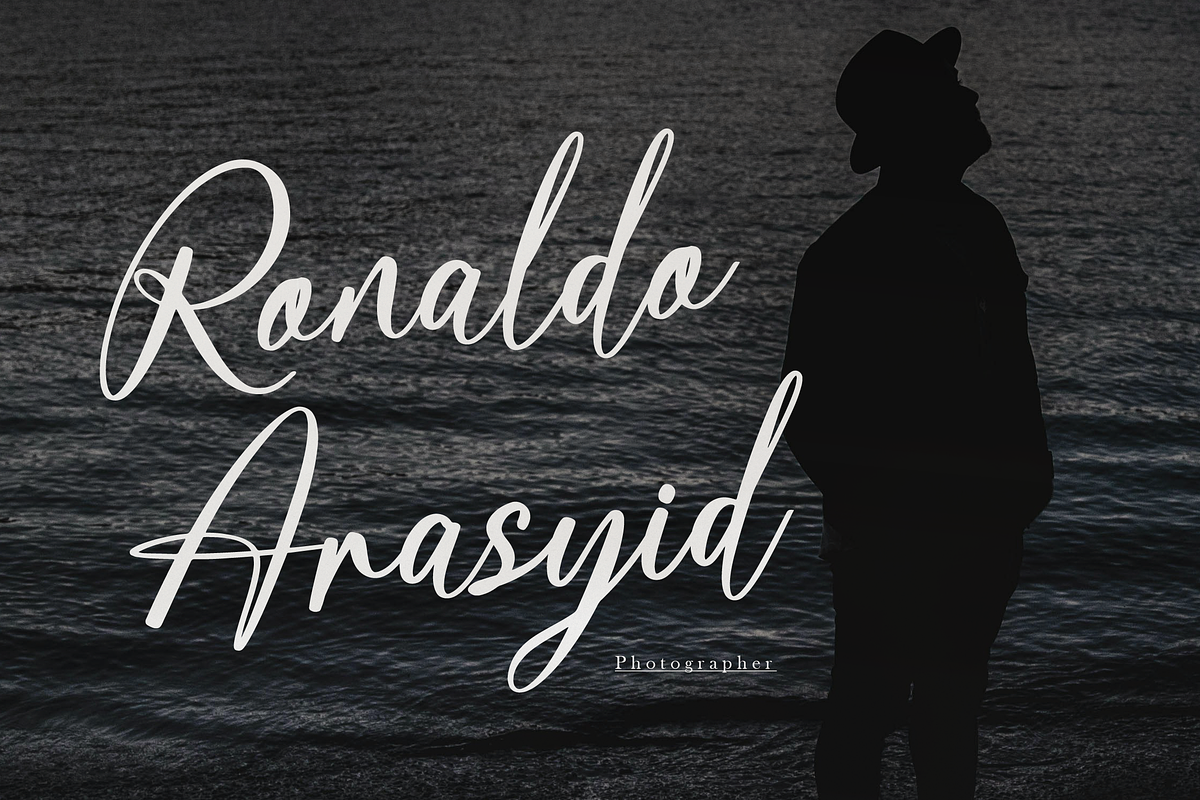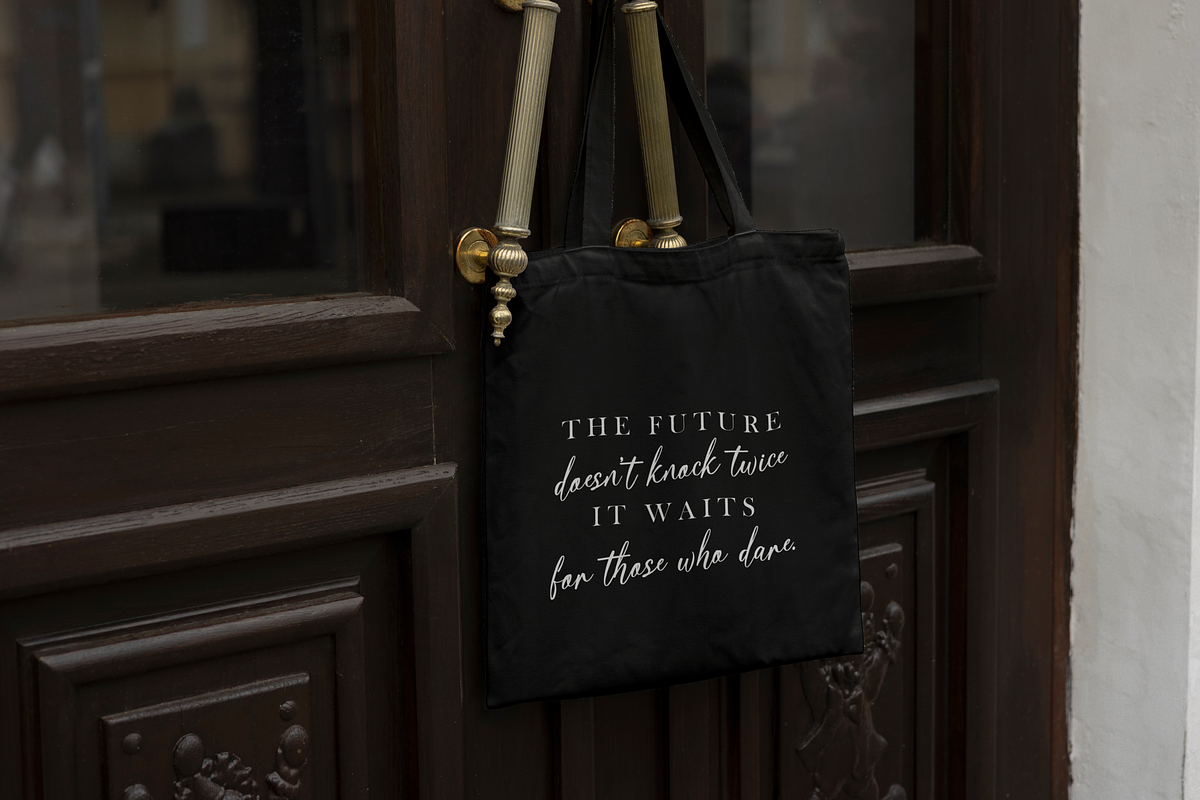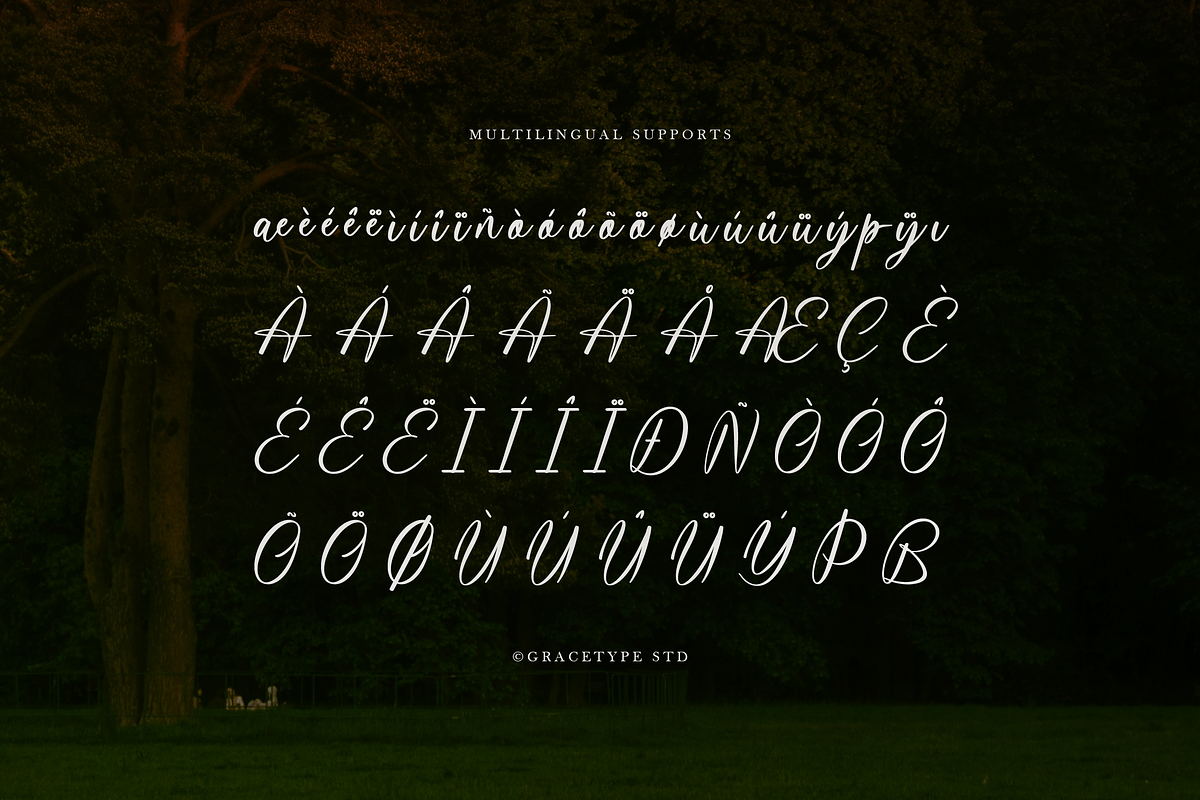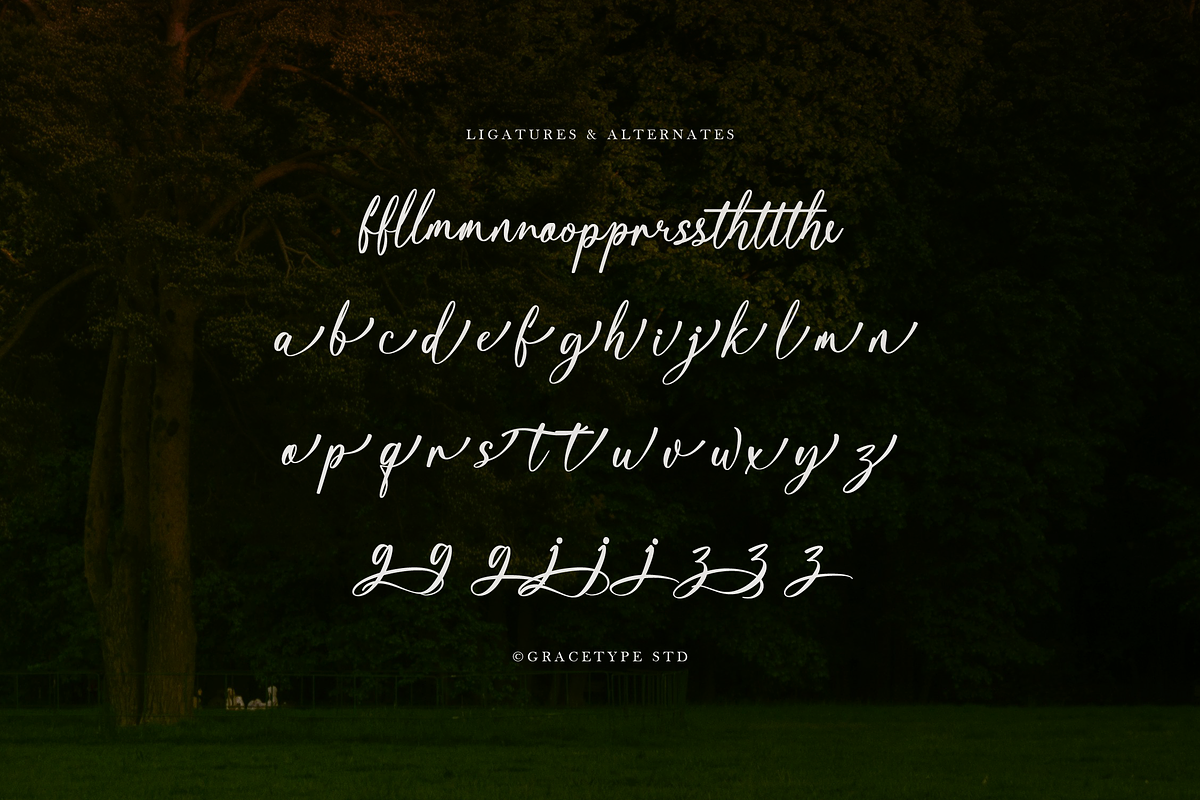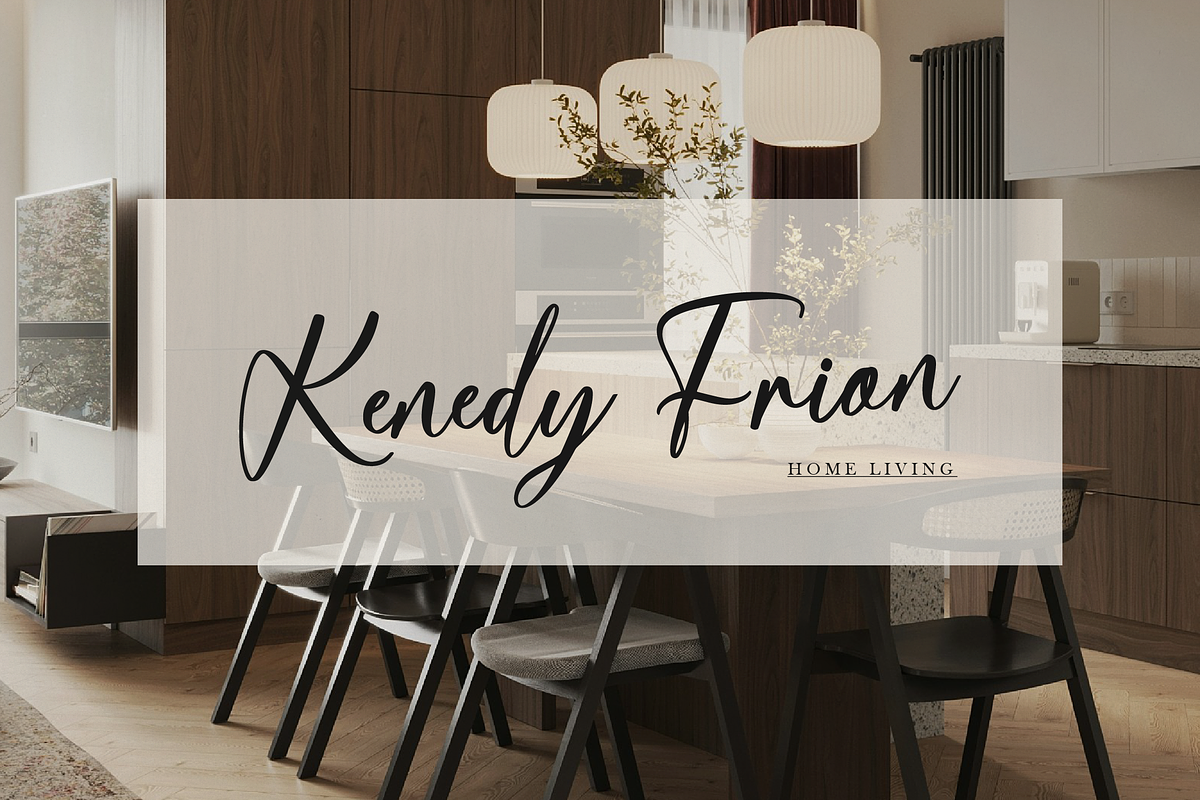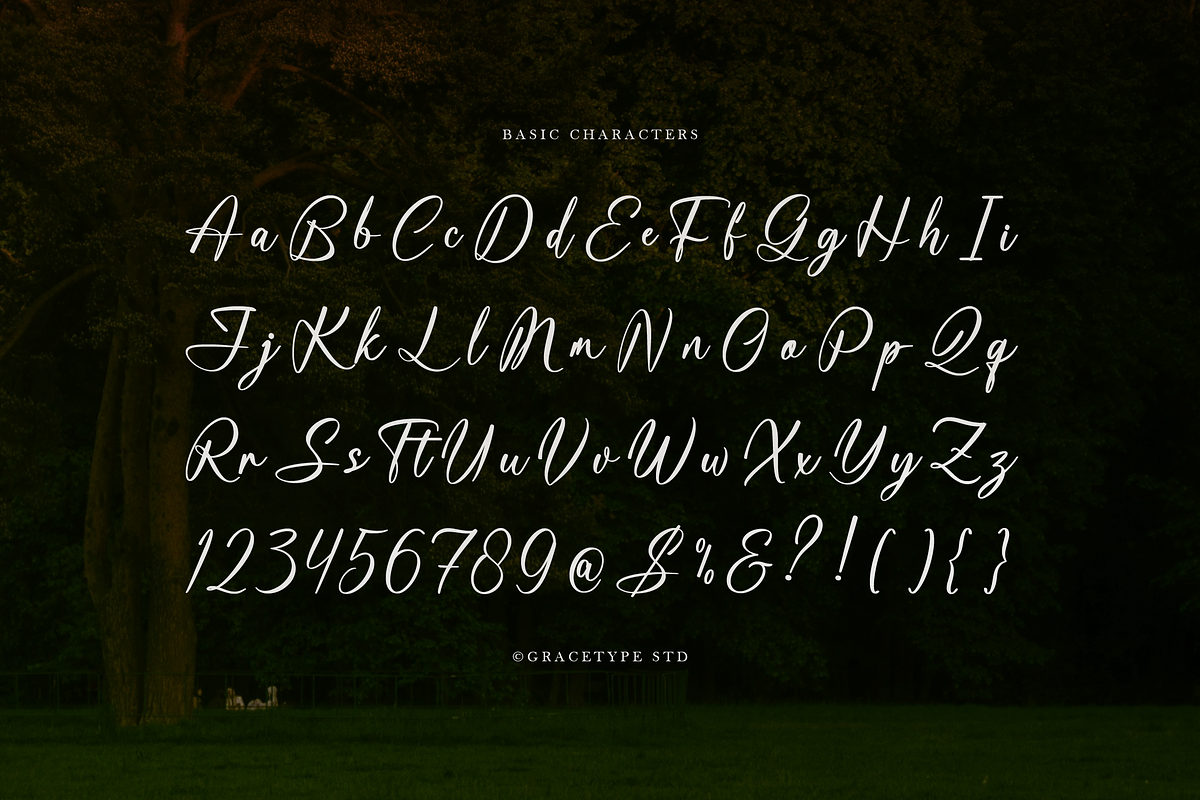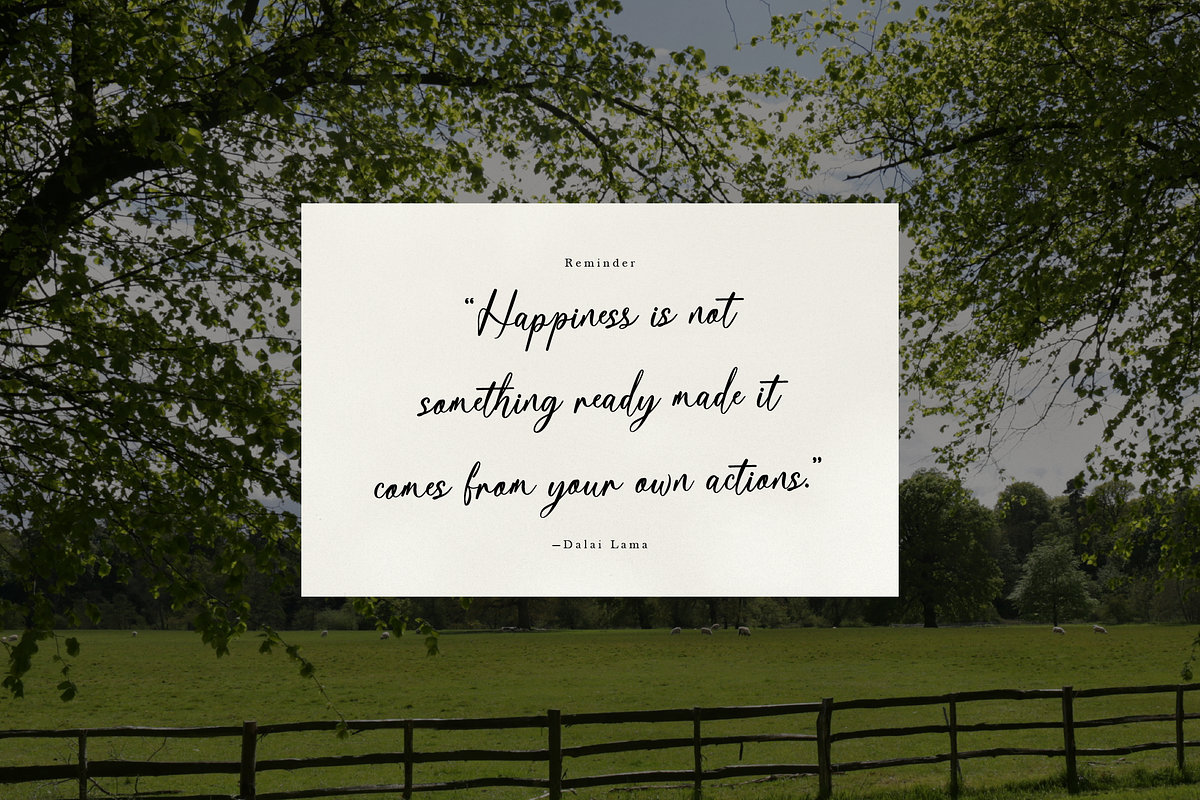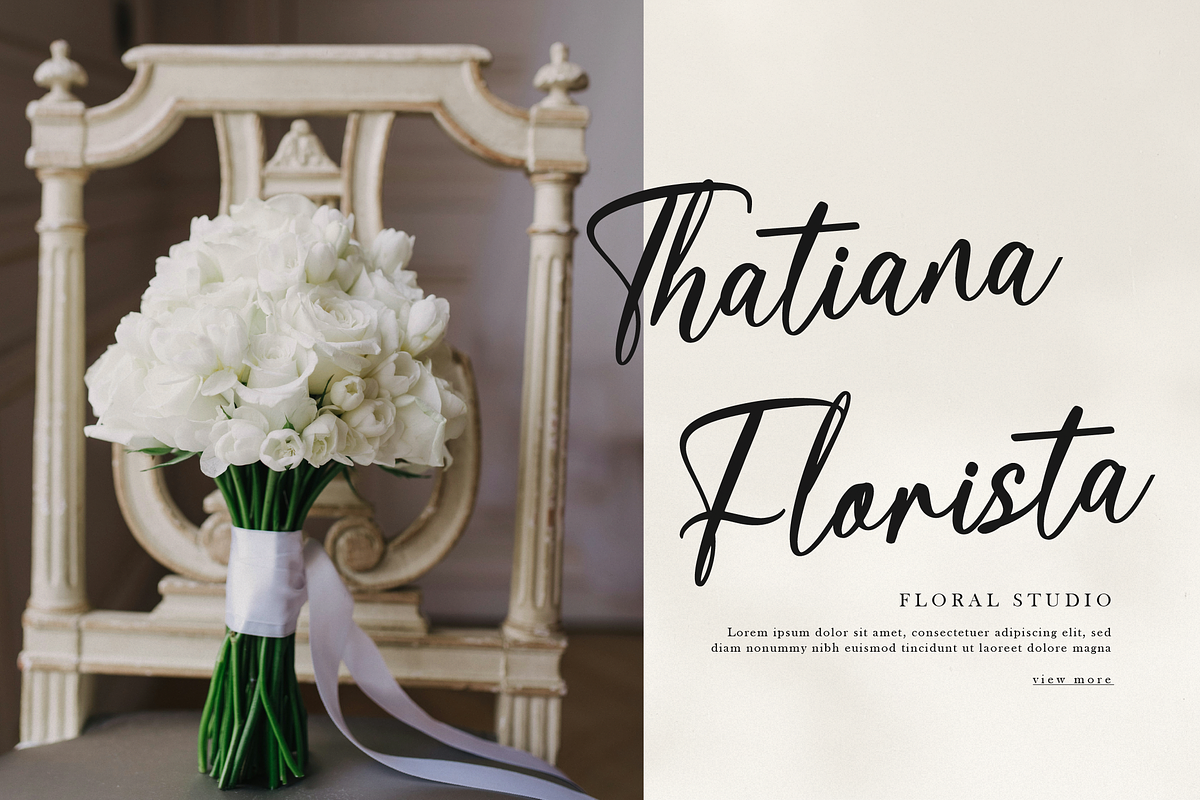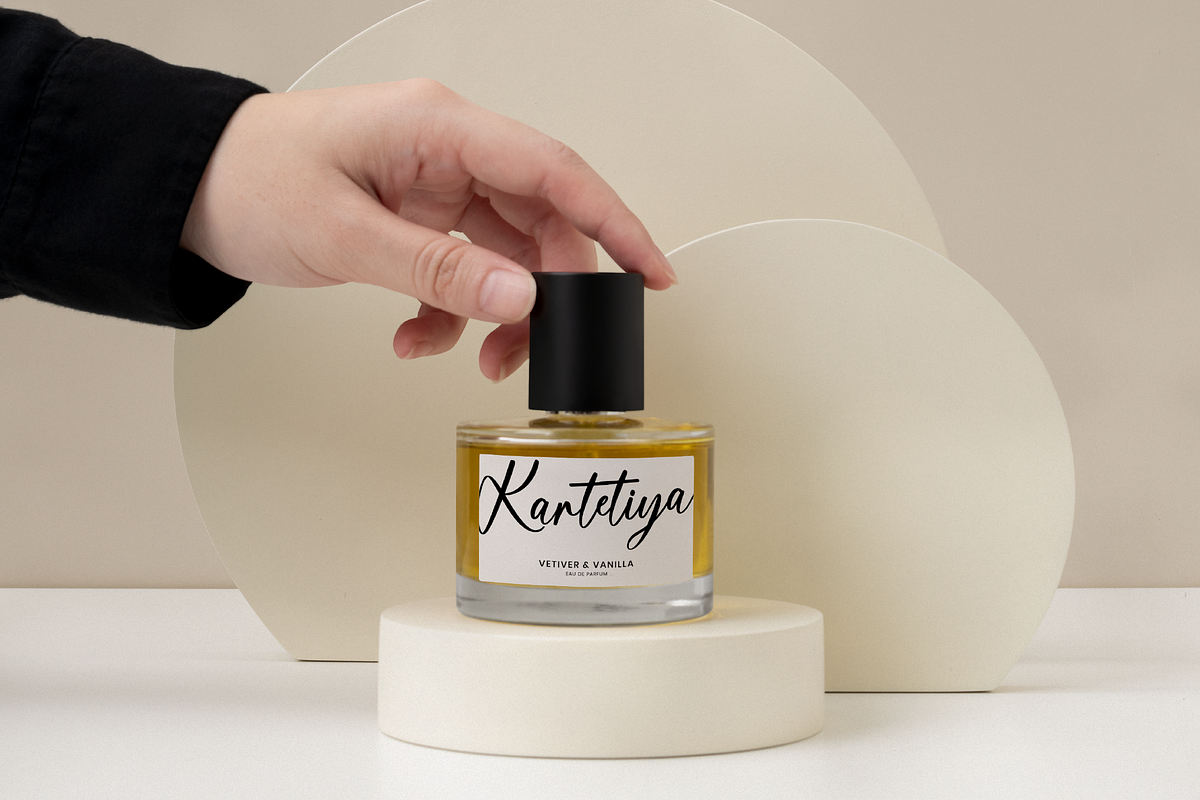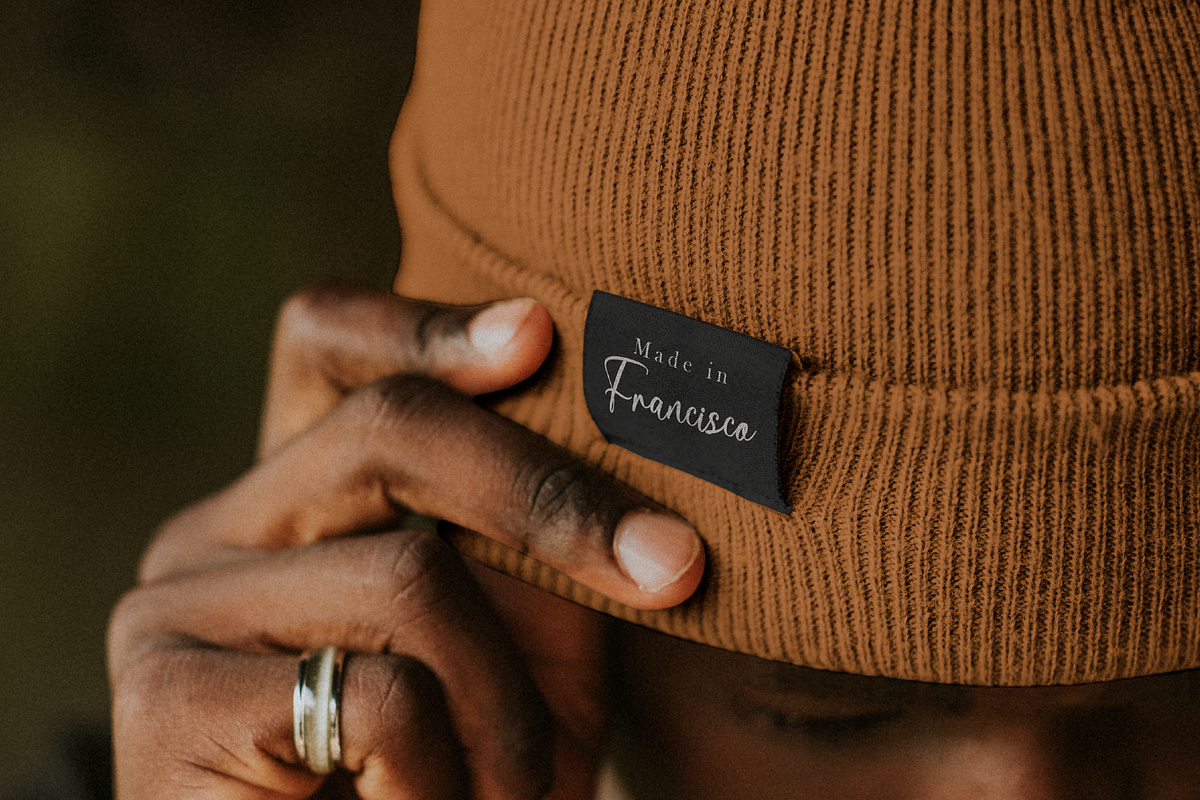
Kartaliaw Mimohasa Elegant Signature
Kartaliaw Mimohasa | Elegant Signature Script, from Gracetypestudio, suitable for any projects such as: logos, branding projects, homeware designs, product packaging, mugs, quotes, posters, shopping bags, t-shirts, book covers, name card, invitation cards, greeting cards, label, photography, watermark, special events, and all your other lovely projects that need a Script taste.